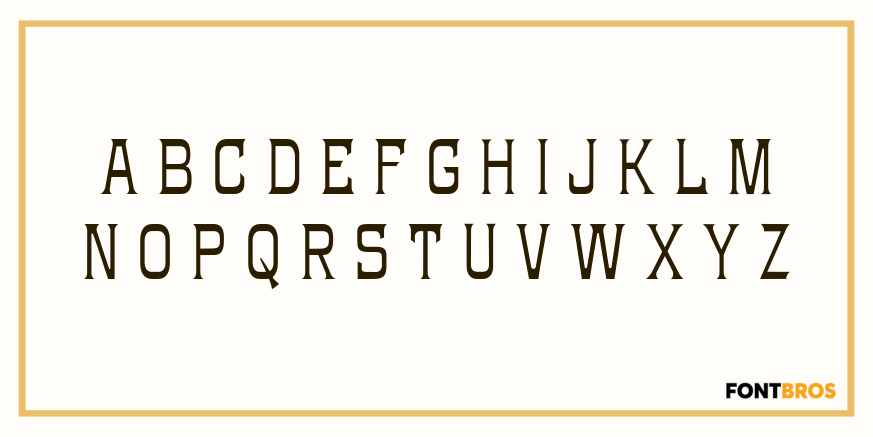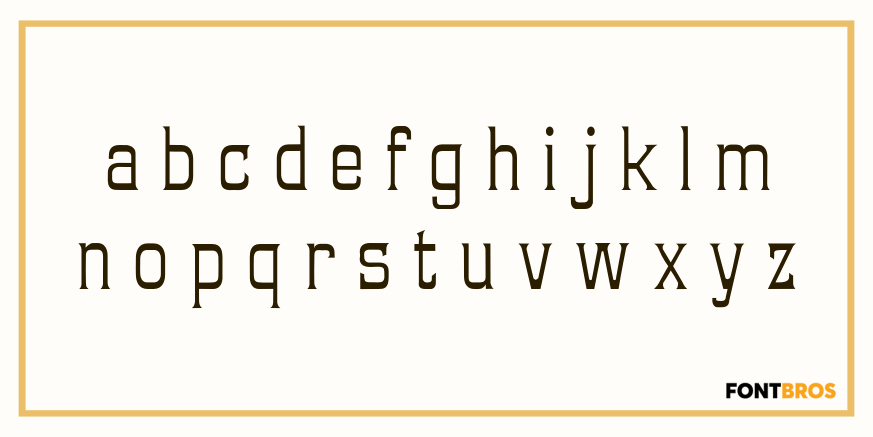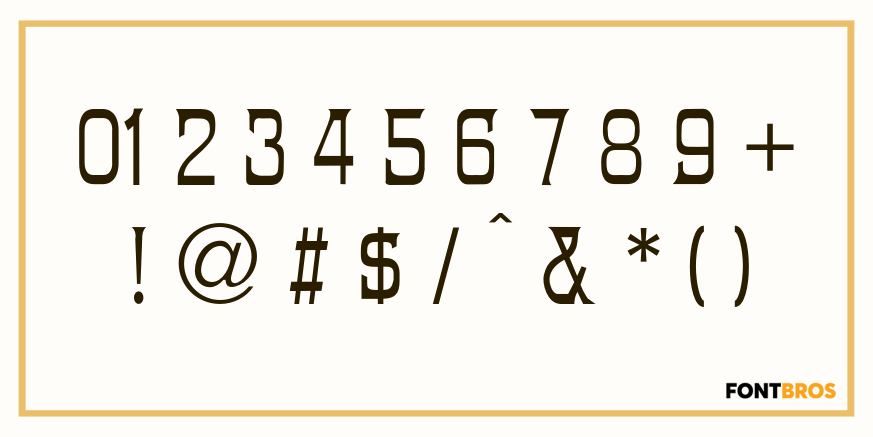
Riviera
Font Family by Solotype
This is derived from the Marder, Luce foundry's face called Rivet.
A nip and a tuck here and there plus the addition of a lowercase make this into a potentially useful font.